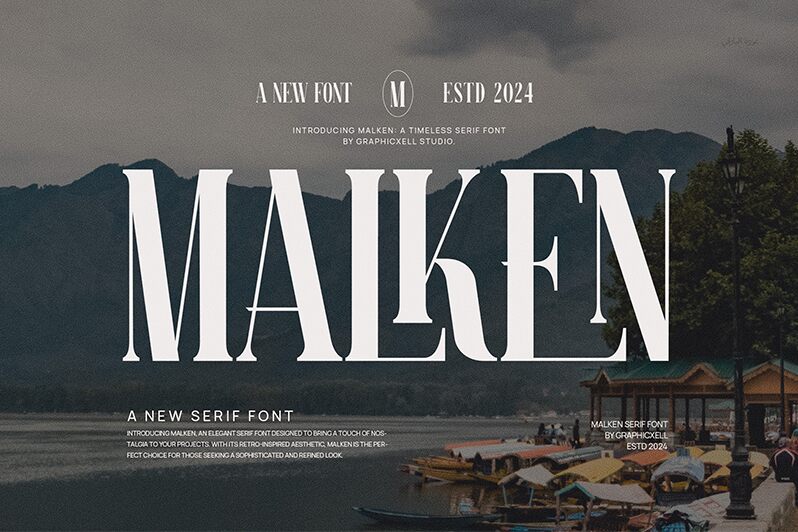
Malken font by Graphicxell is a free modern serif typeface. Its calling card is the striking tension between razor-thin hairlines and inky verticals, wrapped in tall, compressed proportions that feel tailored and poised. Letters lock together with a chic, magazine-worthy rhythm, giving headlines a cool snap without losing elegance.
Using Malken, you get a natural fit for fashion branding, luxury packaging, magazine mastheads, beauty campaigns, wine labels, and bold event posters. This free font thrives when set large, where its sharp edges and tight cadence deliver drama from a distance. Pair it with a quiet grotesque or geometric sans for body copy-something airy that lets Malken’s sleek silhouette do the talking.